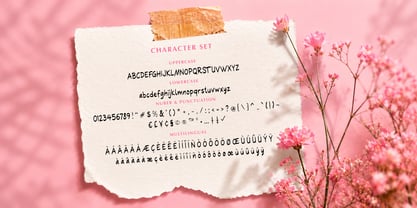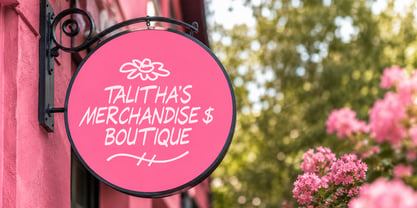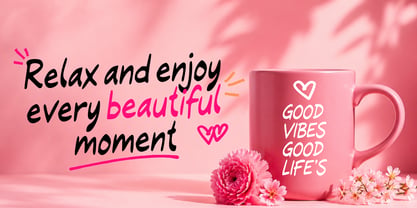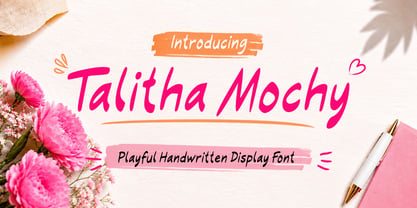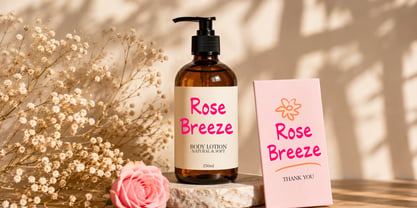
Talitha Mochy – Playful Handwritten Display Font
Talitha Mochy is a playful and expressive handwritten display font designed to bring joy, creativity, and personality into your designs. Featuring bold organic strokes, smooth curves, and a casual hand-drawn feel, this font creates a fun and friendly impression while remaining stylish and modern.
With its natural handwritten appearance and lively character, Talitha Mochy is perfect for branding projects, product packaging, social media content, beauty products, fashion branding, posters, invitations, greeting cards, quotes, merchandise, and creative craft designs. The font’s charming and artistic style makes every design feel more warm, personal, and eye-catching.
Talitha Mochy combines a casual modern aesthetic with soft handcrafted details, making it highly versatile for both feminine and trendy themes. Its bold shapes and playful rhythm help create standout typography compositions that look authentic and visually appealing across digital and print media.
Carefully crafted for designers, creators, and branding enthusiasts, Talitha Mochy delivers excellent readability while maintaining its fun and artistic handwritten personality. Whether used for headlines, logos, packaging, or social media graphics, this font adds a unique handcrafted touch that instantly enhances your work.
Features:
✔ Regular Style
✔ Oblique Style
✔ Handwritten display font
✔ Bold and playful letterforms
✔ Smooth organic strokes
✔ Natural handcrafted feel
✔ Perfect for branding and packaging
✔ Great for social media and quotes
✔ Suitable for feminine and modern themes
✔ Multilingual support
✔ Easy to use for creative typography projects
Talitha Mochy is the perfect choice for anyone looking to create cheerful, stylish, and memorable designs with a handcrafted modern vibe.